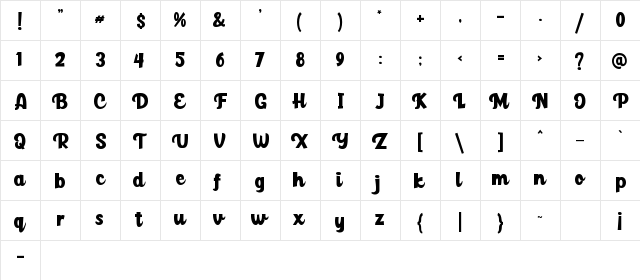
Paladise Script Regular
Design Context for Paladise Script Typeface
Paladise Script flows with the natural rhythm of handwritten lettering, making it ideal for designs that call for warmth and personal expression.
Font Pairing: Combine Paladise Script with a simple geometric sans for maximum contrast — the tension between flowing curves and clean structure is a classic typographic pairing.
Pro Tip: Pair Paladise Script with a clean sans-serif for supporting text. The contrast between fluid script and geometric structure creates an elegant typographic hierarchy.